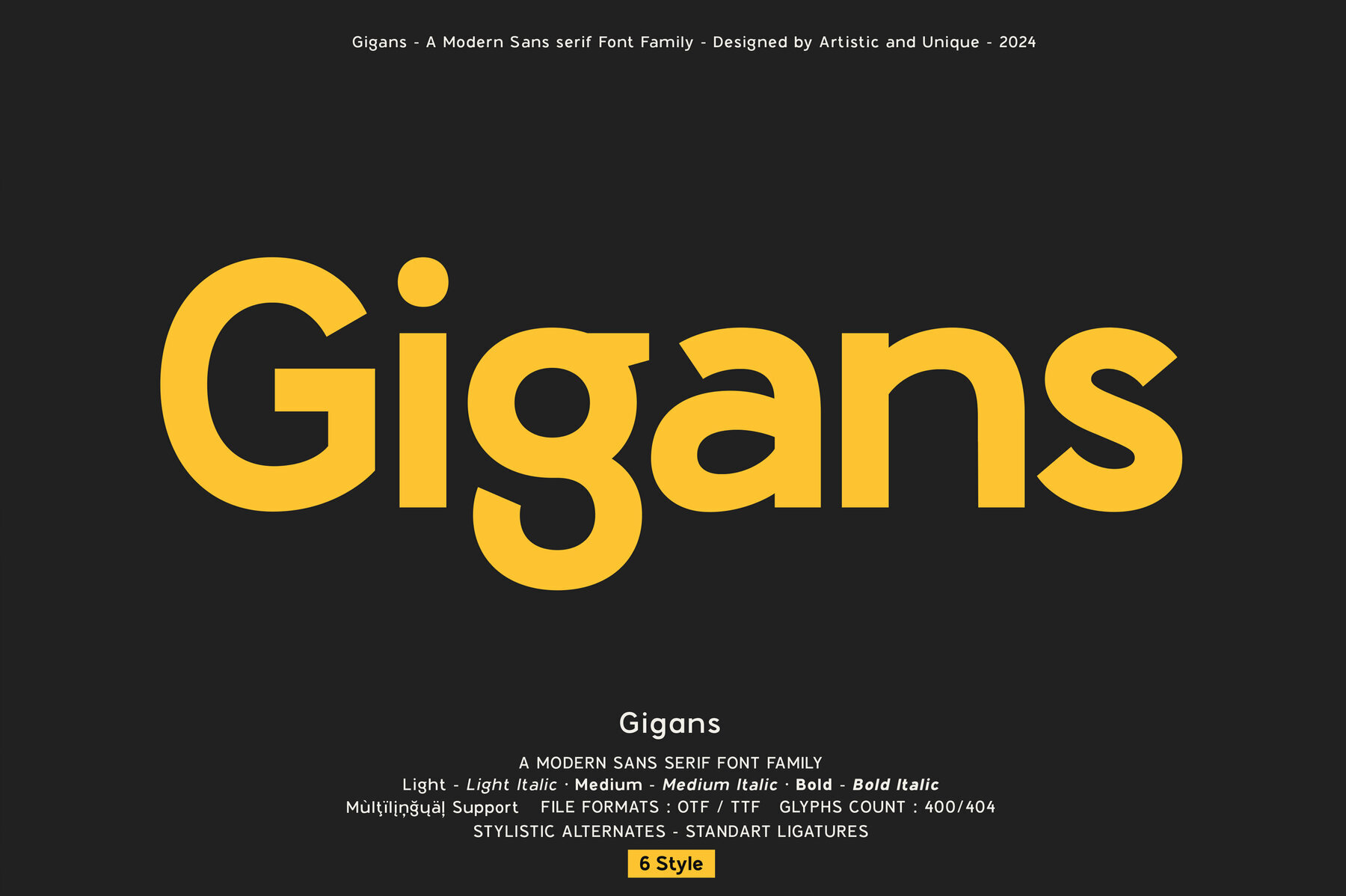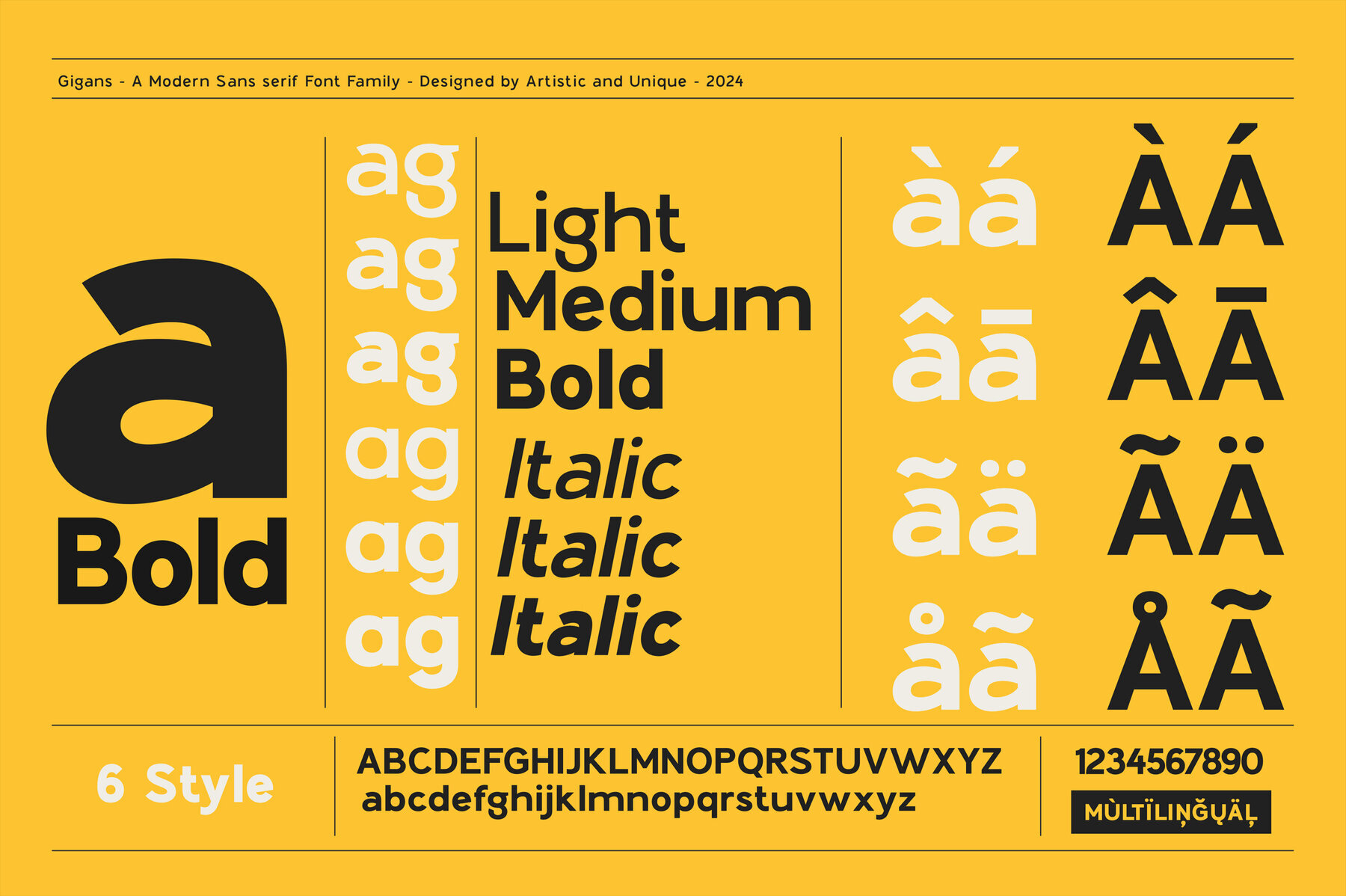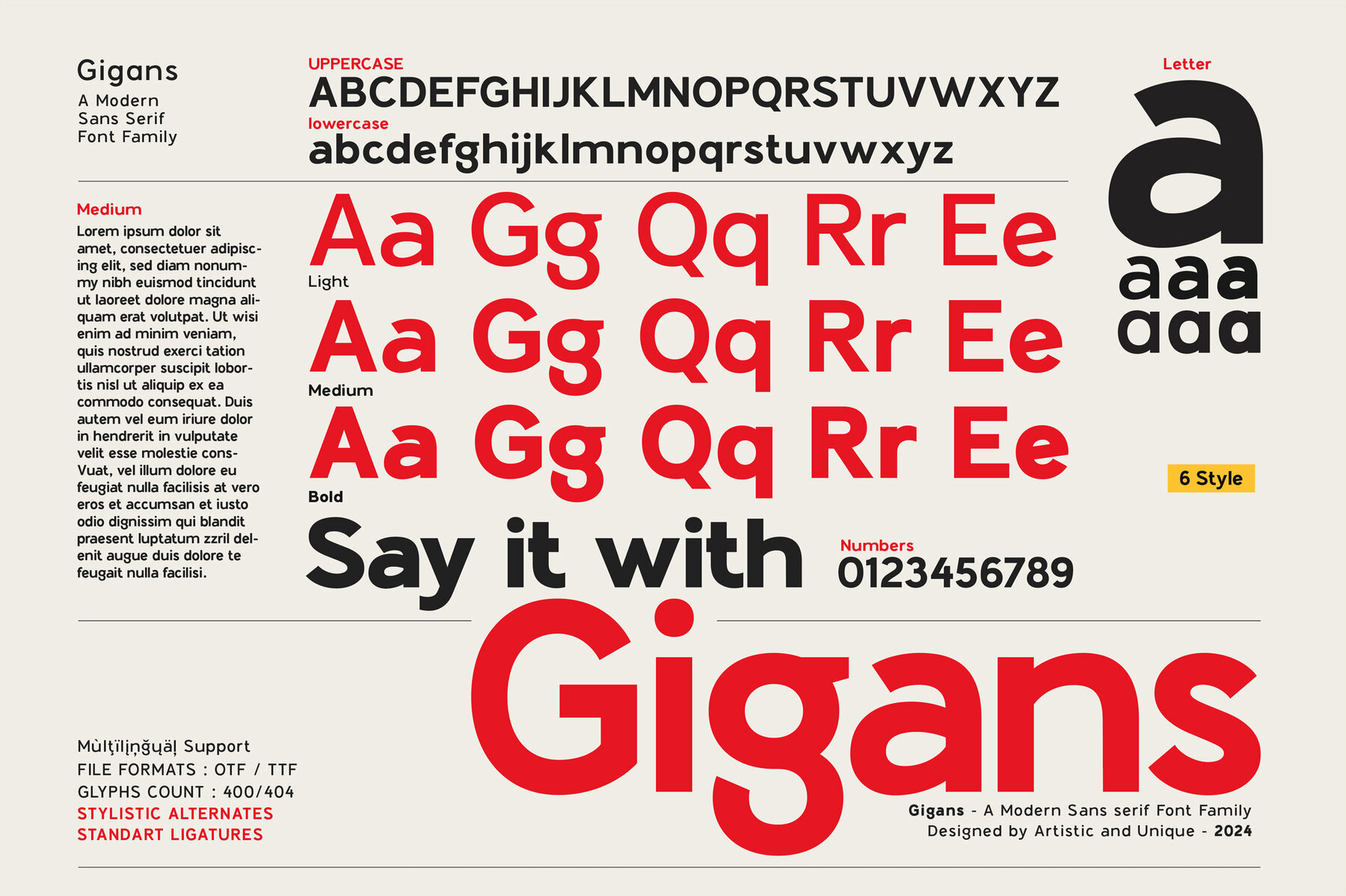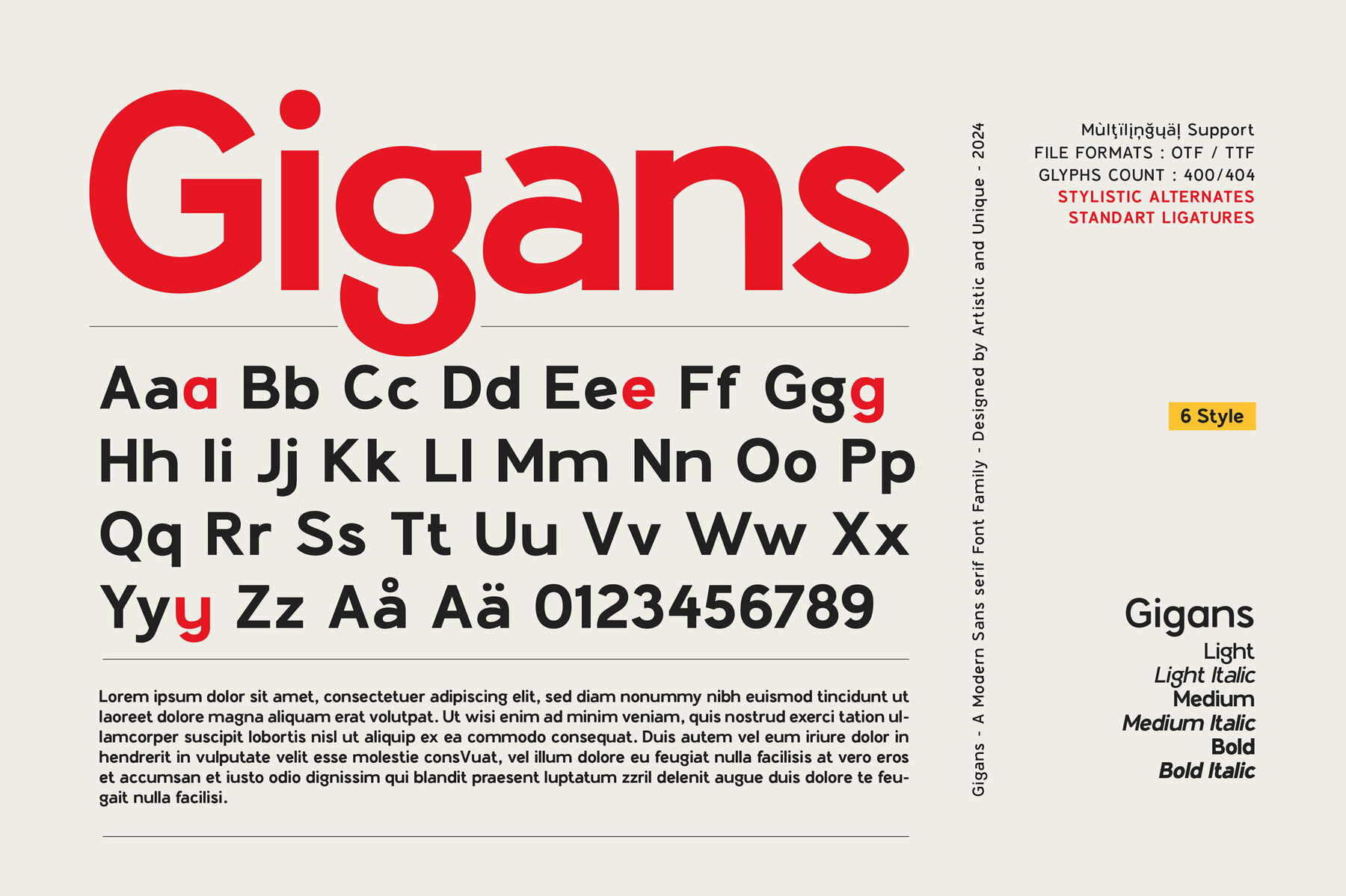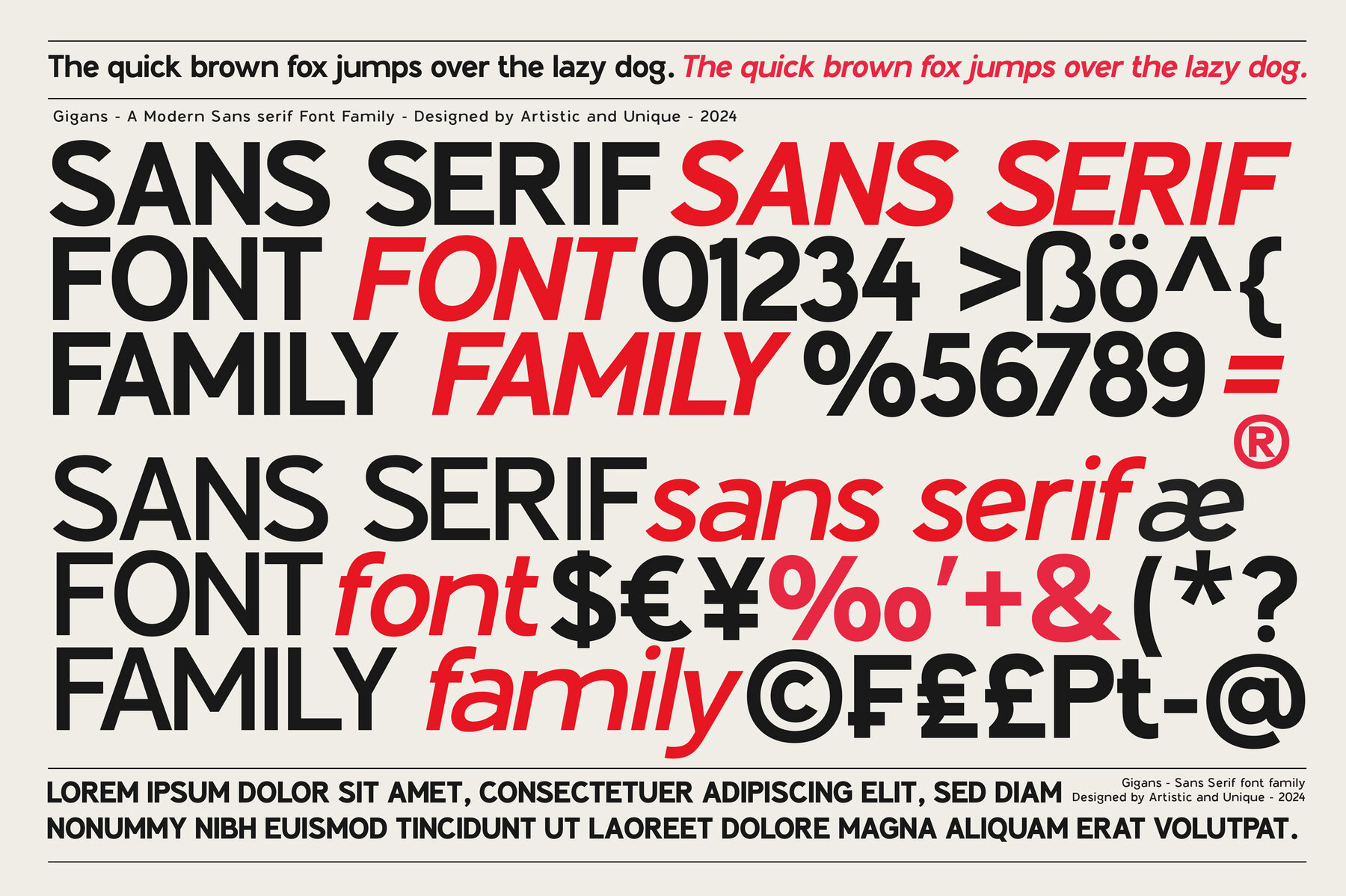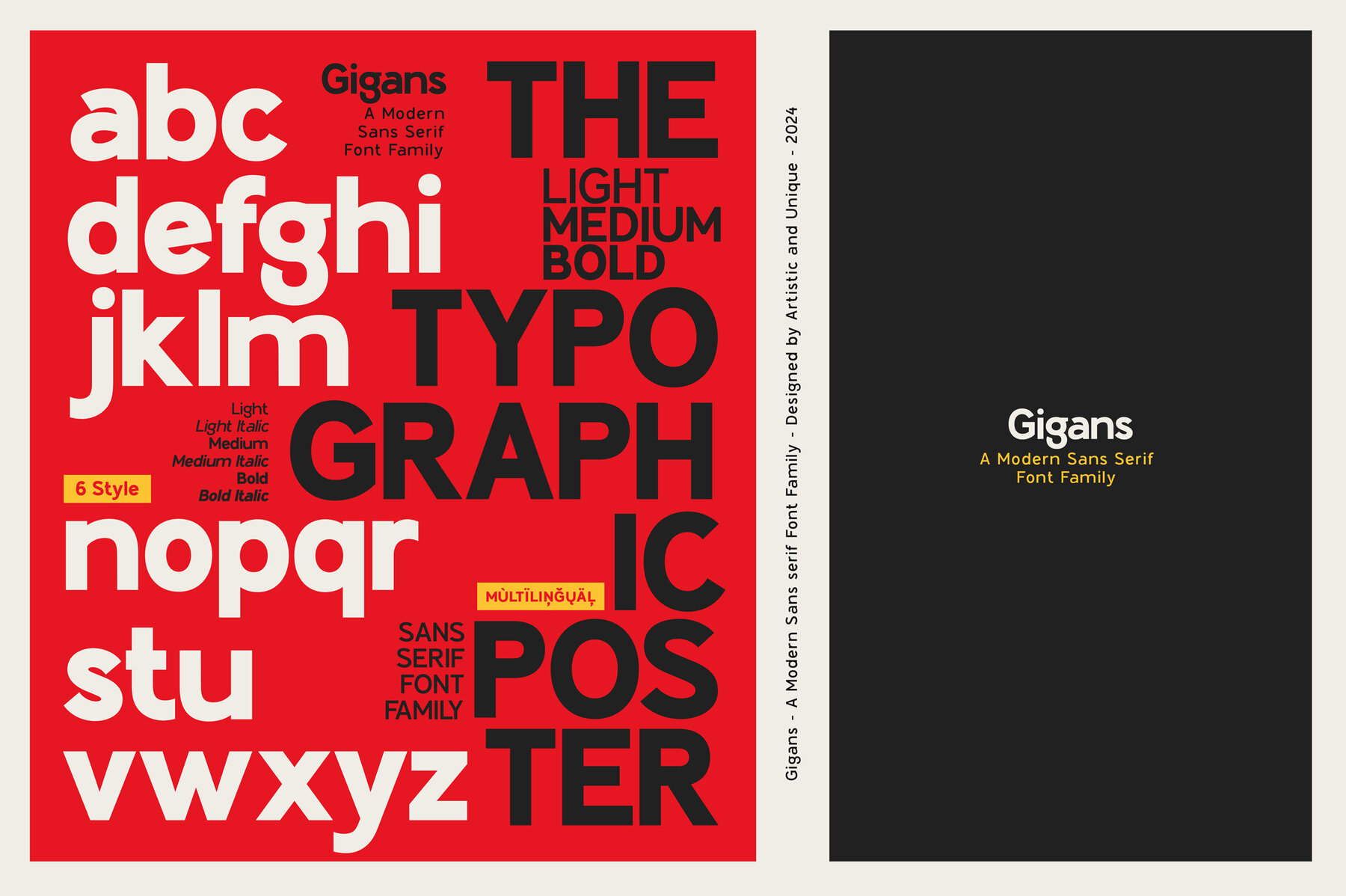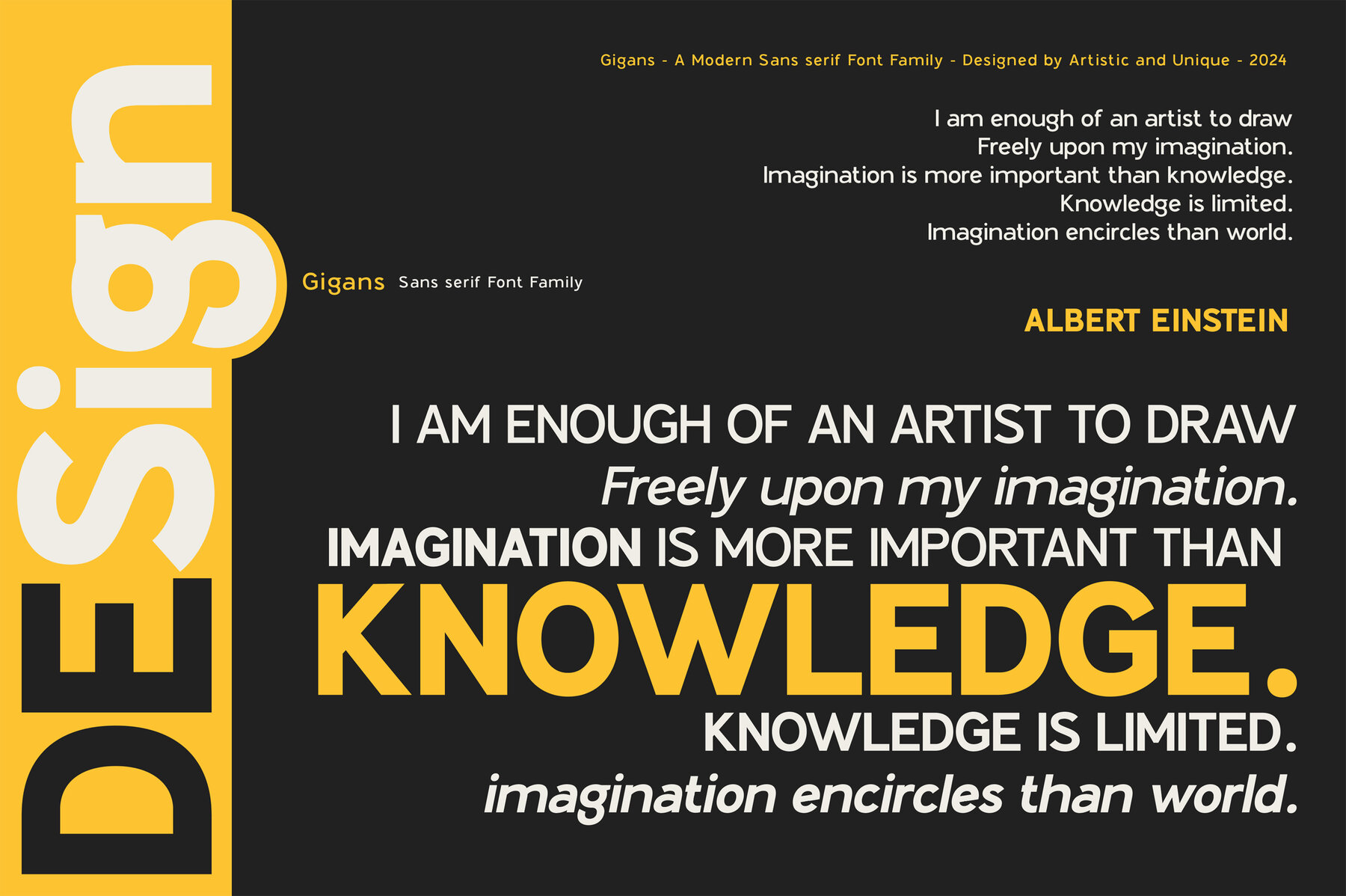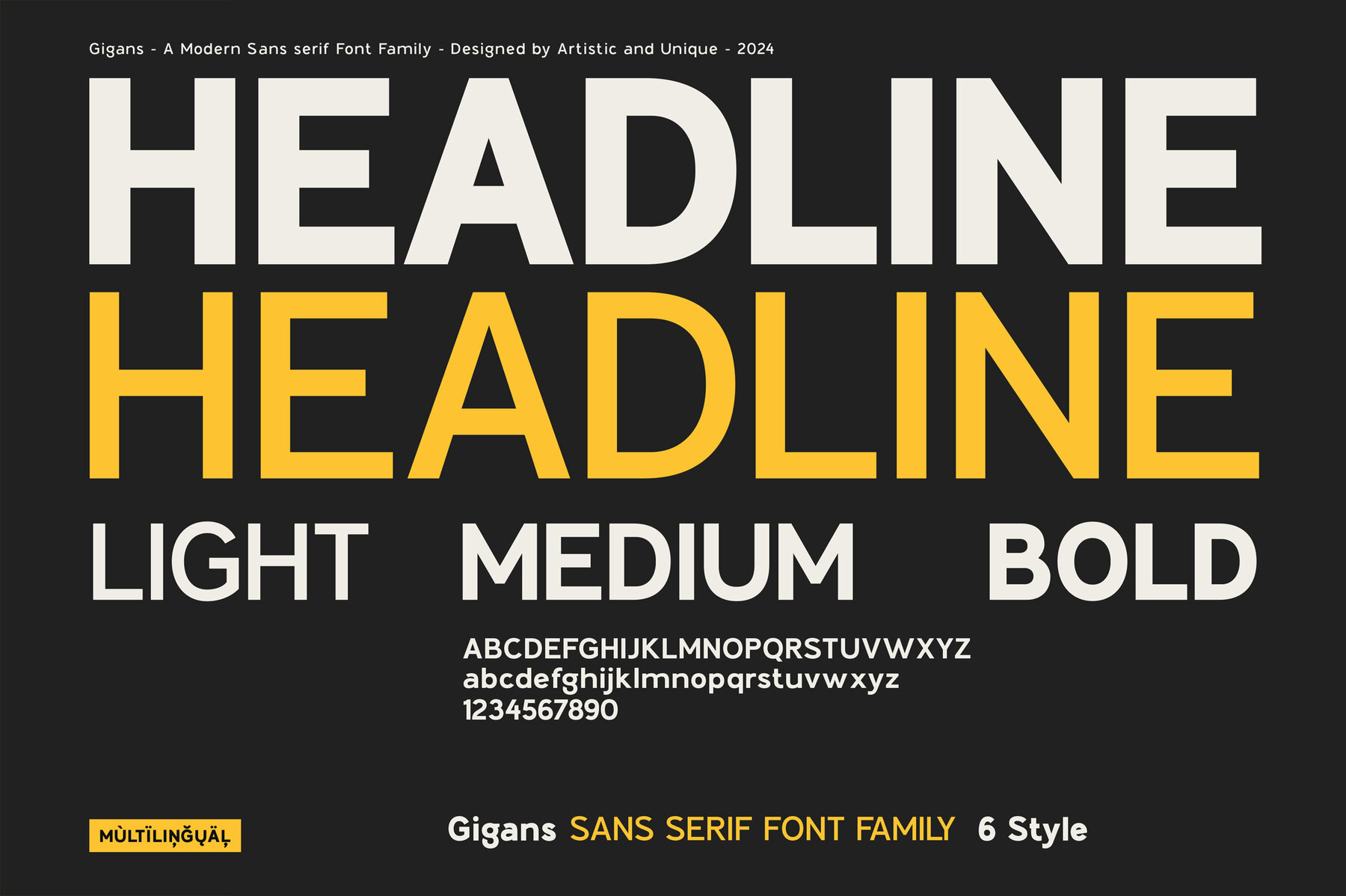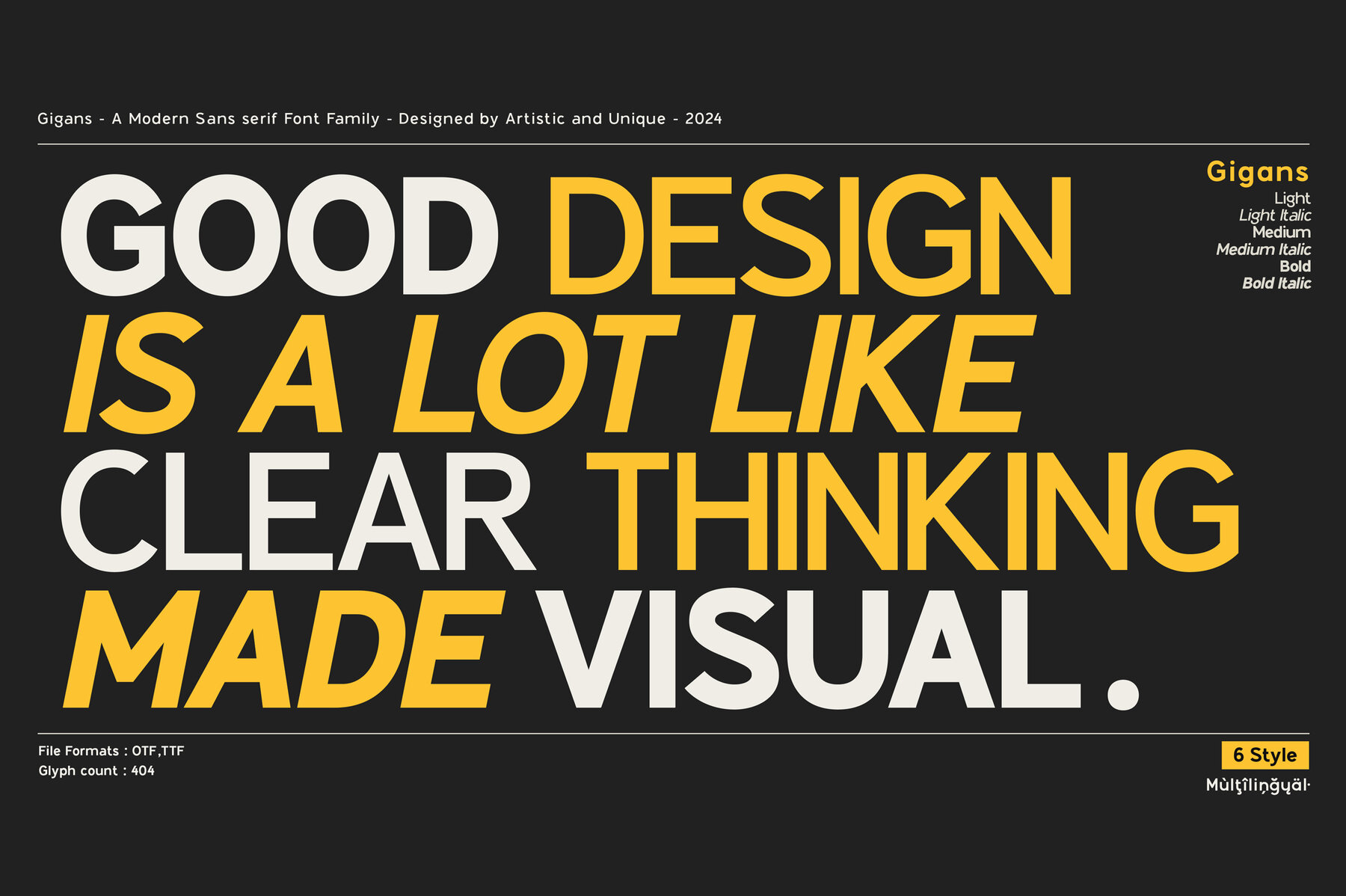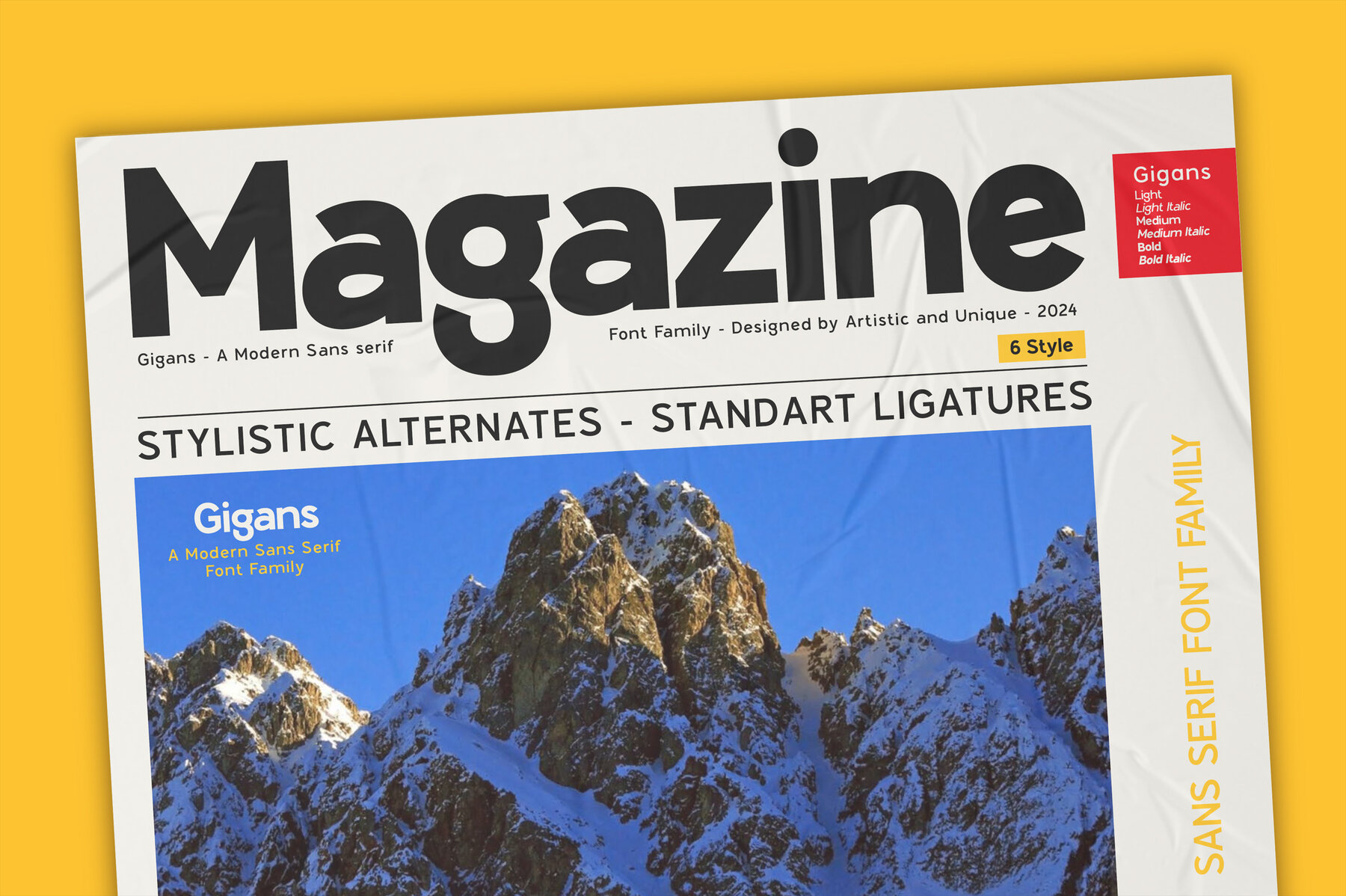
Gigans Font
Gigans is a modern sans serif font family featuring six distinctive styles, complete with alternate characters and multilingual support. Renowned for its unique structural characteristics, this font family is designed to add sophistication and readability to any project. The bold style is perfect for crafting strong, emphatic headlines, while the medium and light variations excel in body text usage. Each weight within the family is created to ensure outstanding legibility across different mediums. Features: This font family fits seamlessly into a wide array of applications, from books and magazines to editorials, websites, logos, branding, and advertising. Whether your project is modern or classic, Gigans offers the versatility needed to make a lasting impression.Gigans: A Versatile Sans Serif Font Family